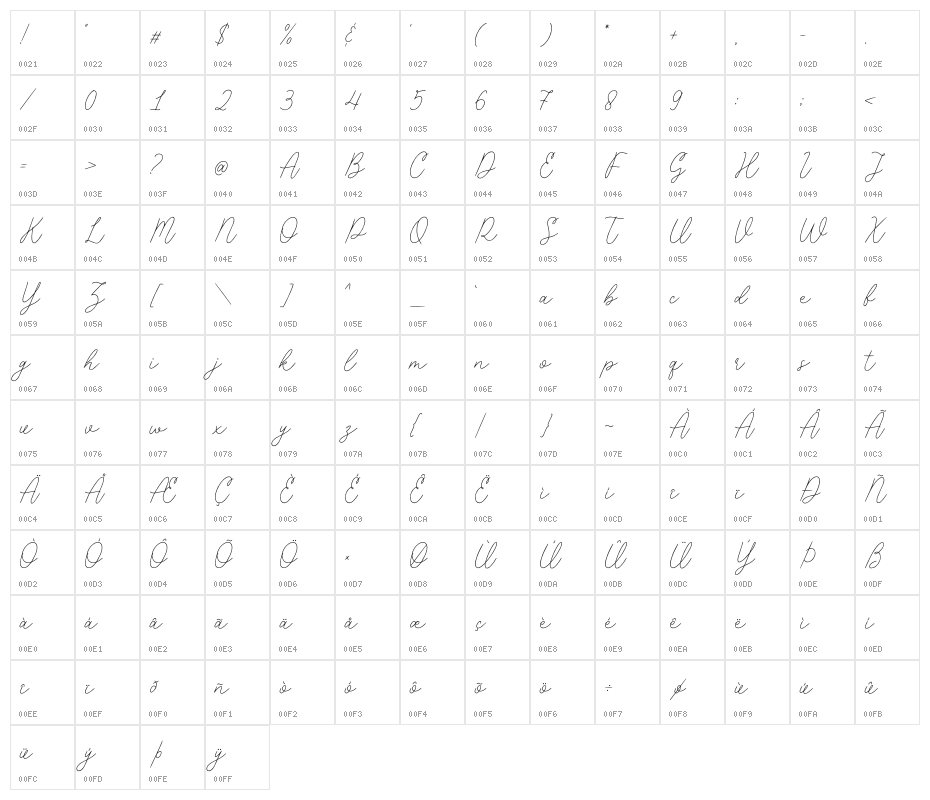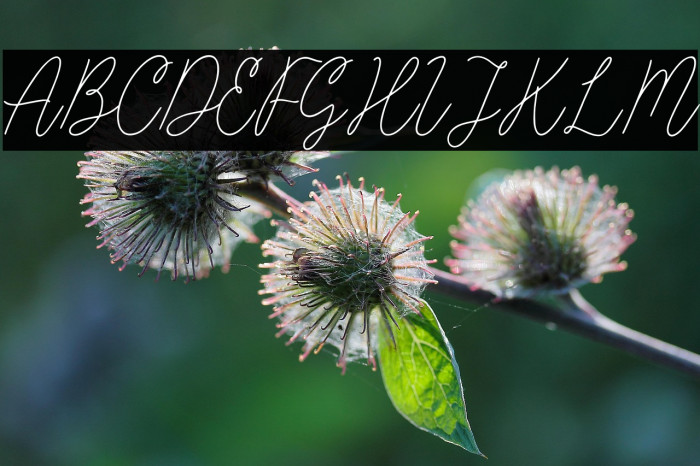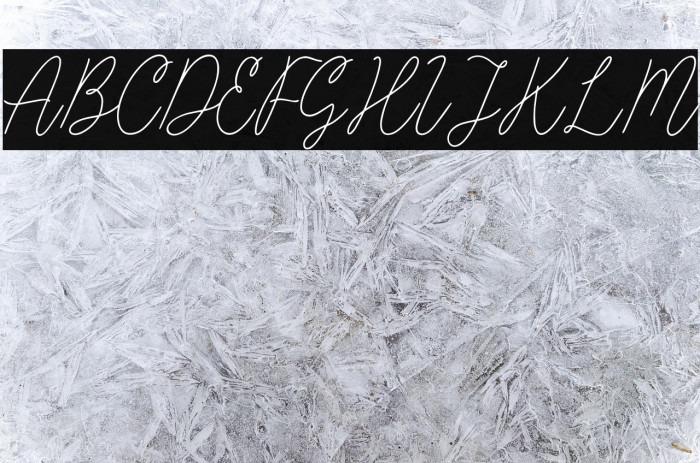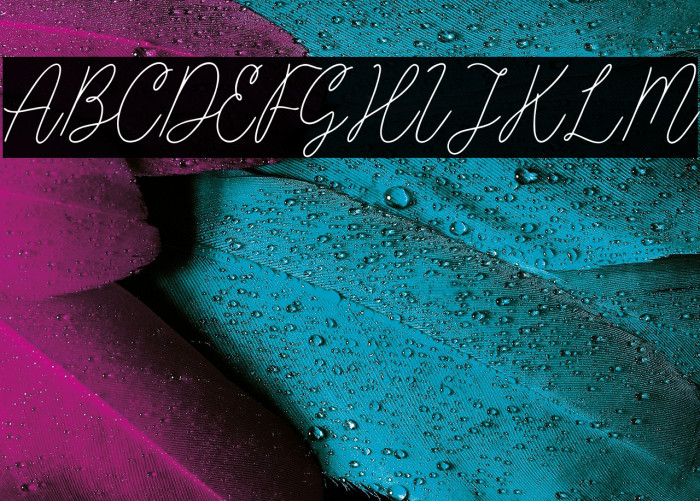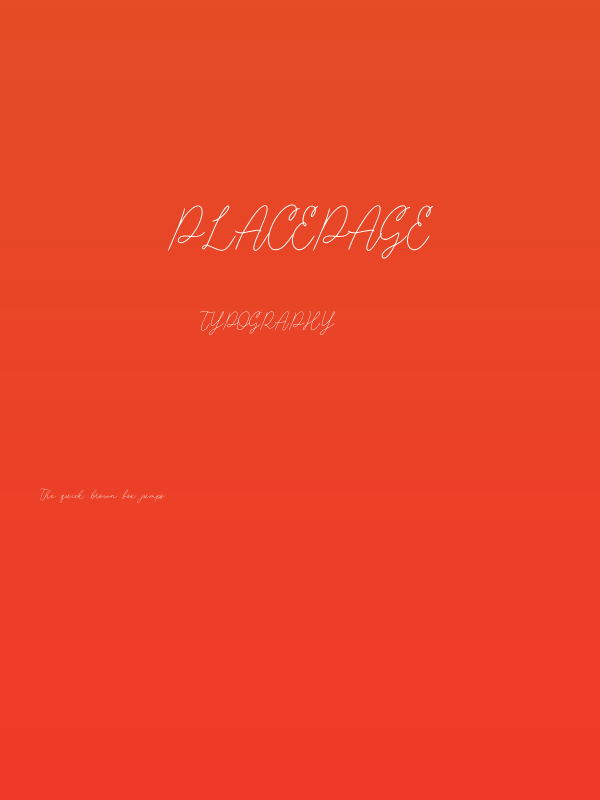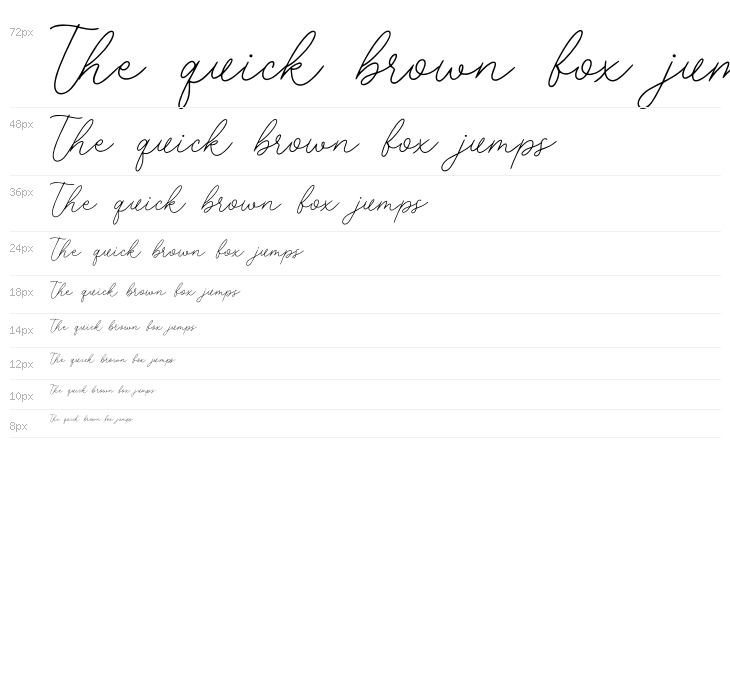
Placepage Font
Placepage Description
This elegant script font features a fluid, cursive style that mimics the natural flow of handwriting. The characters are connected with smooth, sweeping lines, giving it a graceful and sophisticated appearance. The uppercase letters are slightly taller and more pronounced, while the lowercase letters maintain a consistent baseline, enhancing readability. The numerals and special characters are designed to match the overall aesthetic, with delicate curves and loops. This font exudes a sense of elegance and refinement, making it ideal for formal invitations, branding, and decorative projects.
| Overall Style | Elegant, Decorative |
| Use Case | Invitations, Branding, Decorative text |
| Proposed Projects | Ideal for wedding invitations, elegant branding, personal stationery, and decorative projects. |